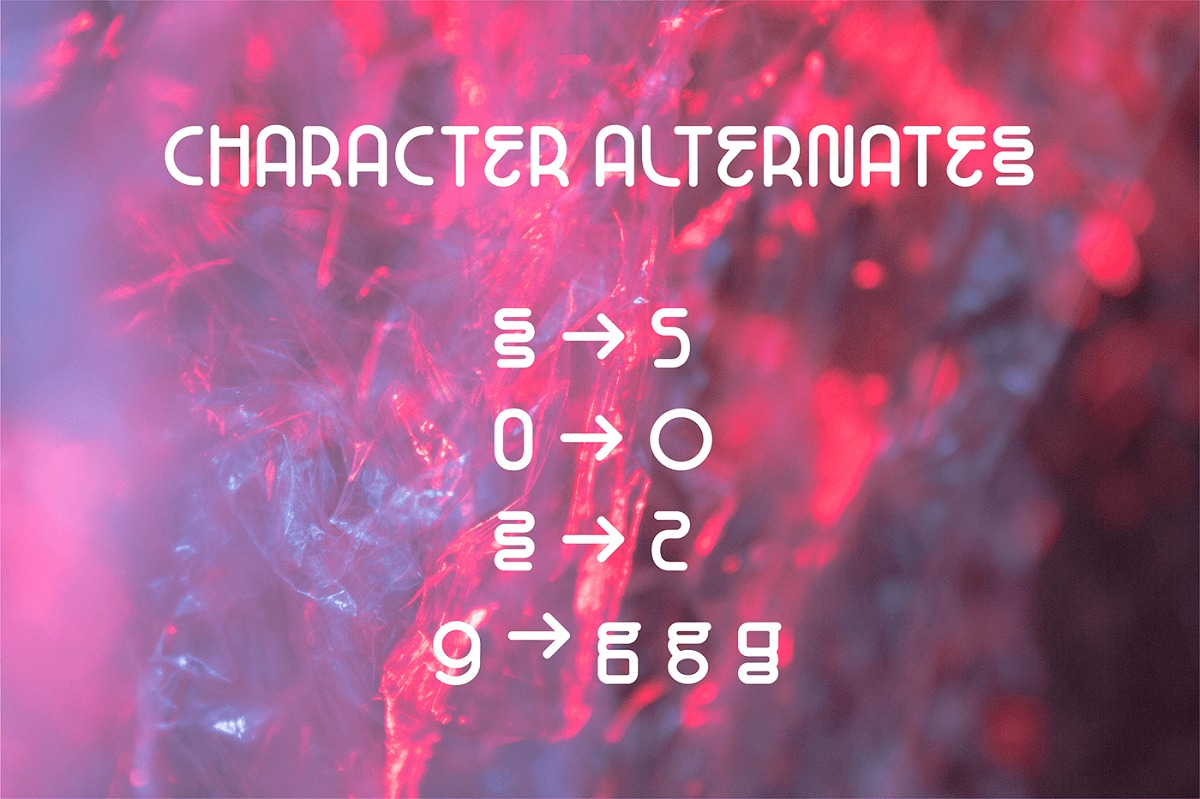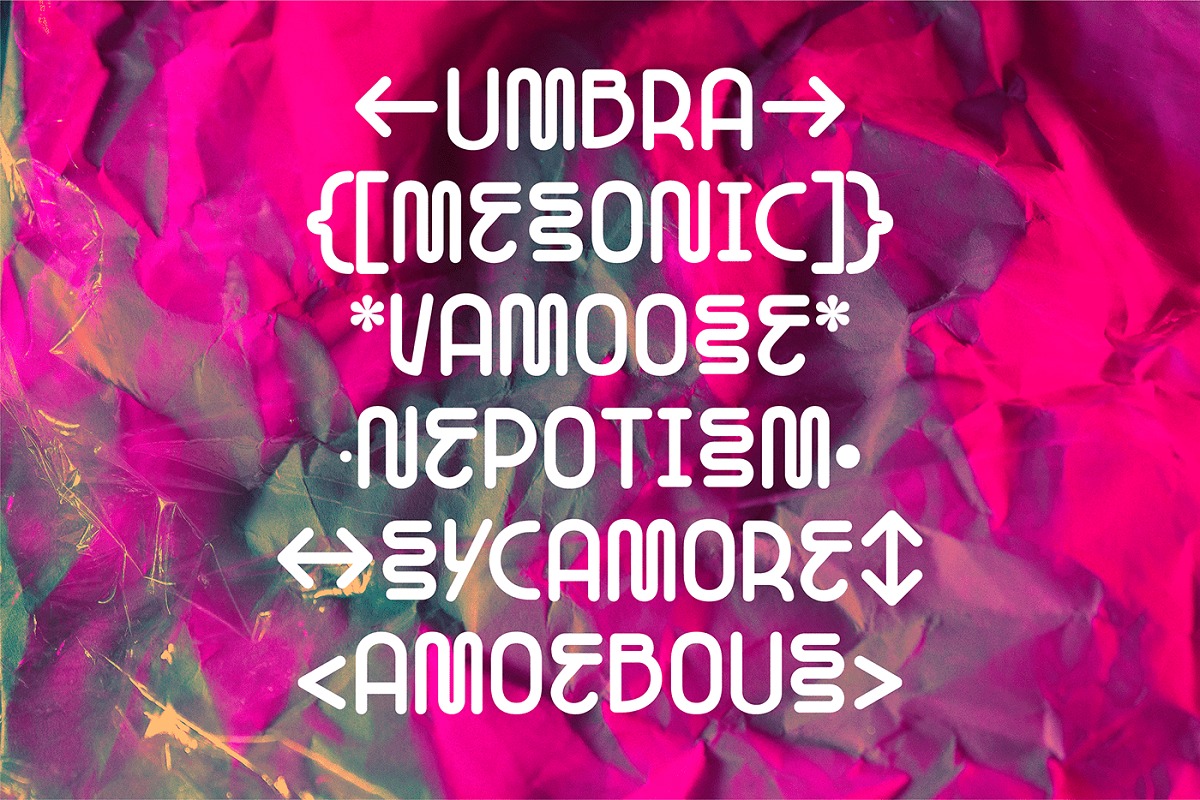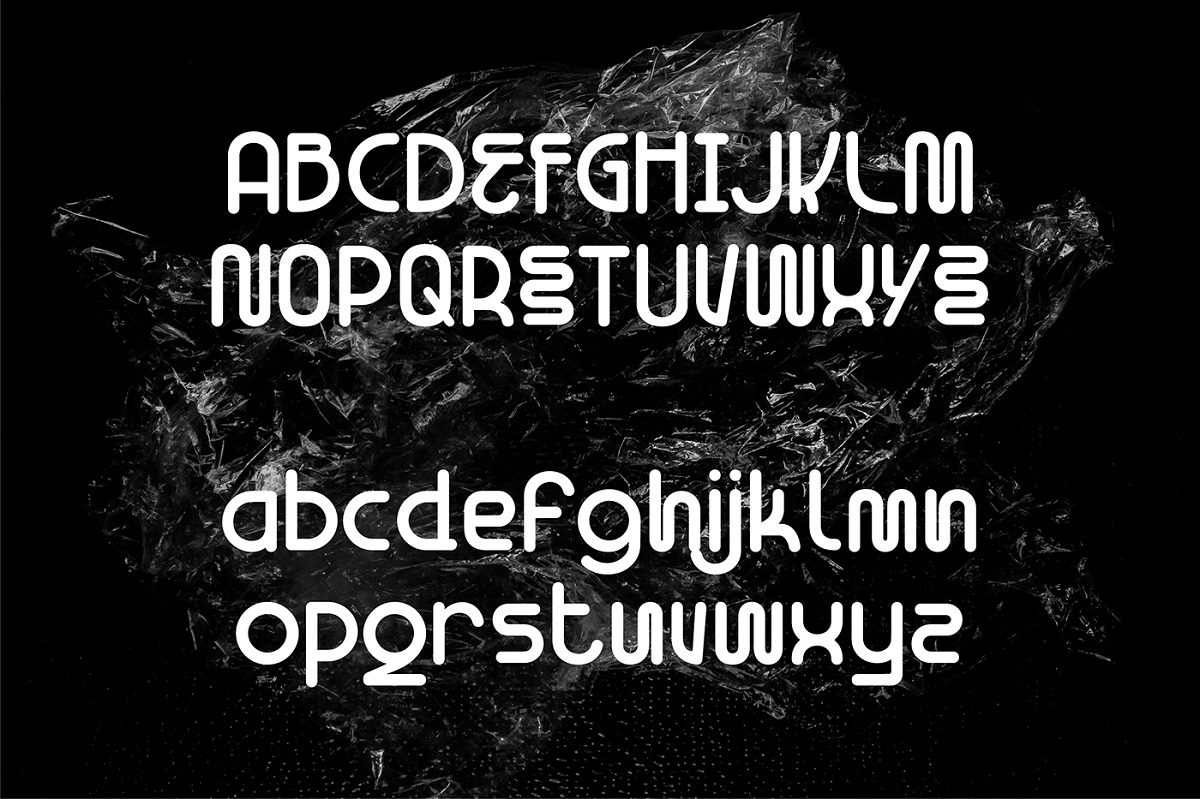
Gawker 2.0 Display Font
This is a futuristic display typeface, a font inspired by the visual of technology that we can find from logo, sci-fi movies, games, and the present gadgets. Designed with minimalist style and unique letterforms, a perfect choice to use on logos, labels, posters, packaging, books, movies, presentations, games, and much more! Raqupine complete with some elegant touch that give your design looks more futuristic and dynamic.